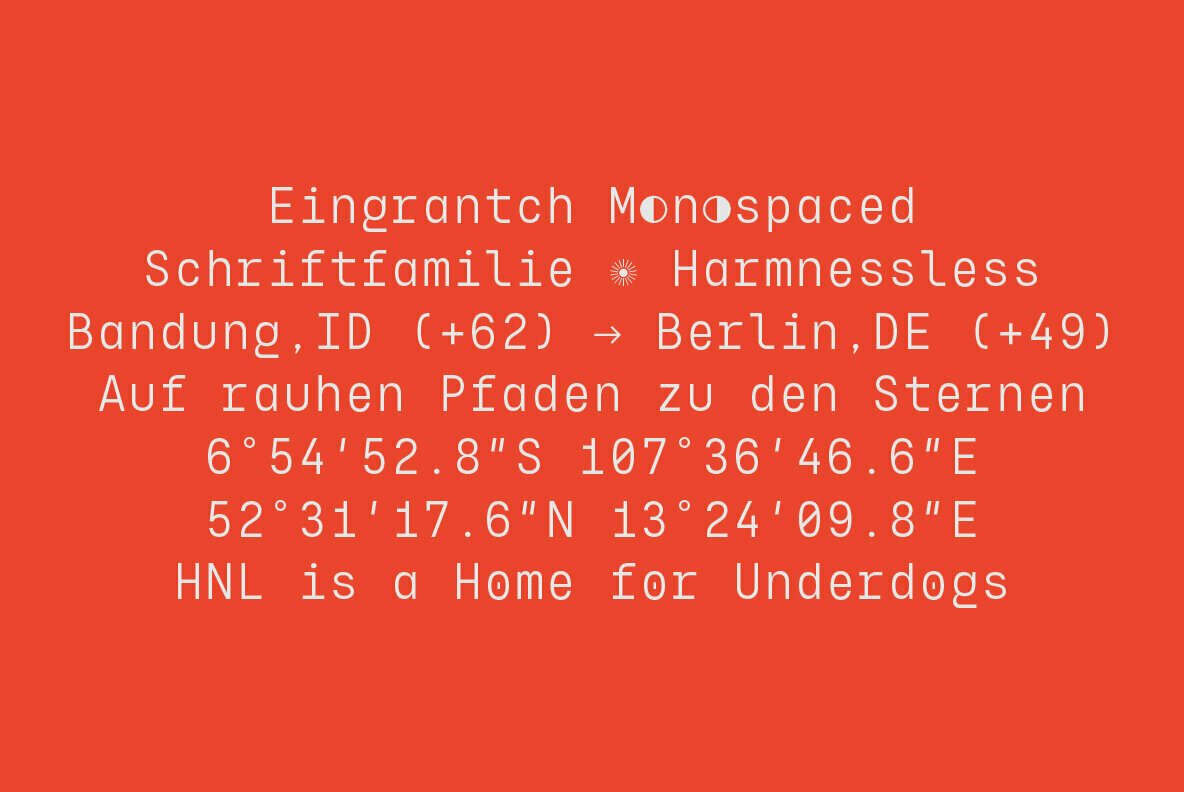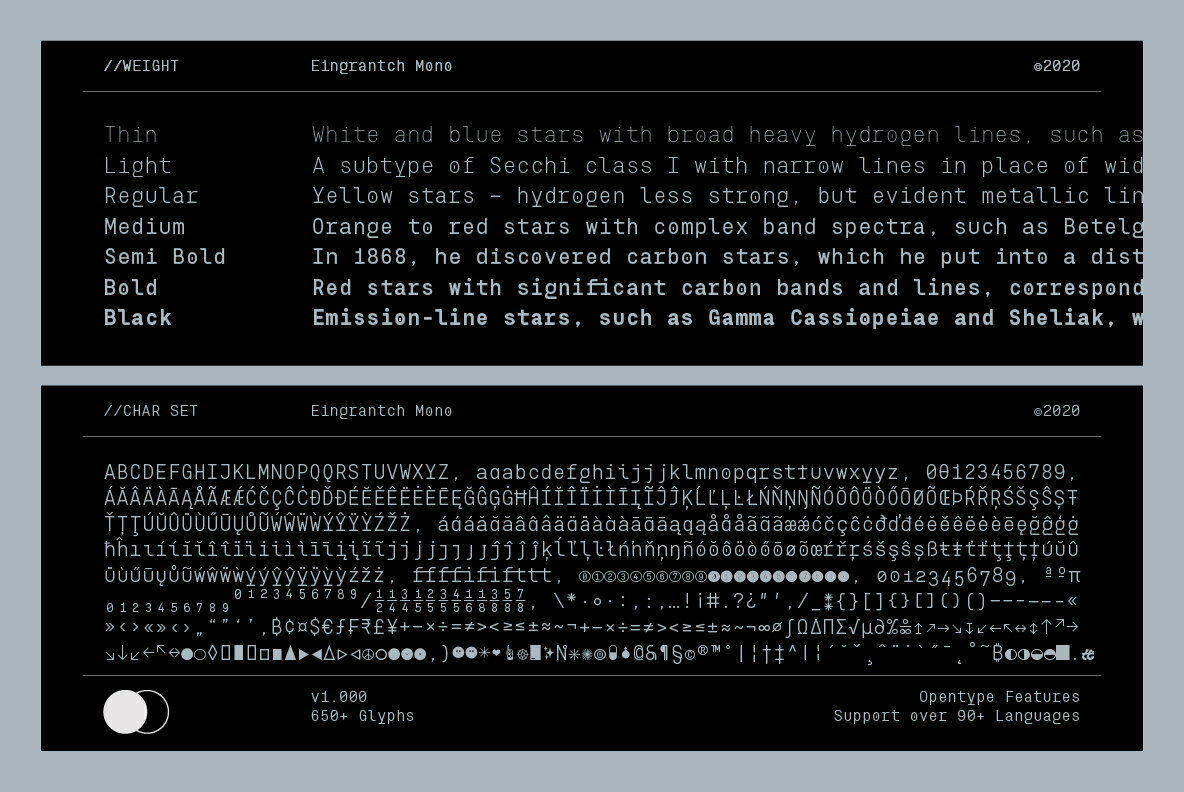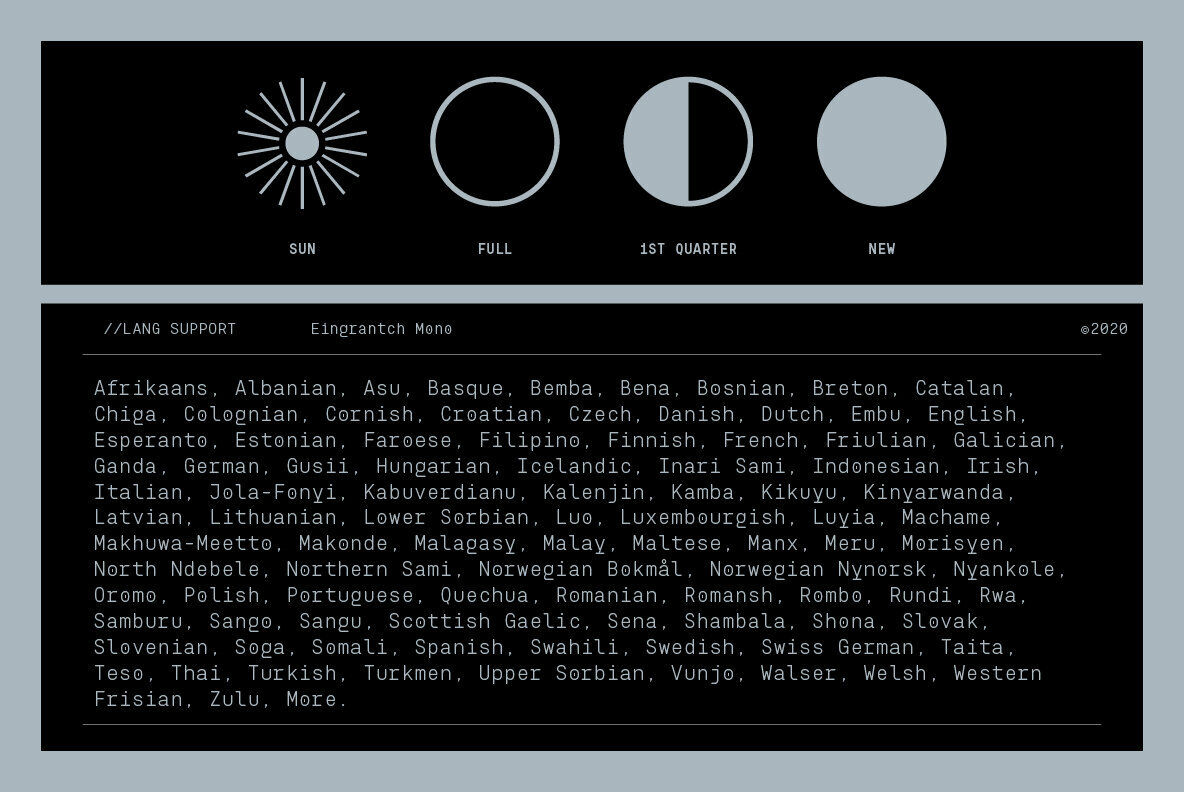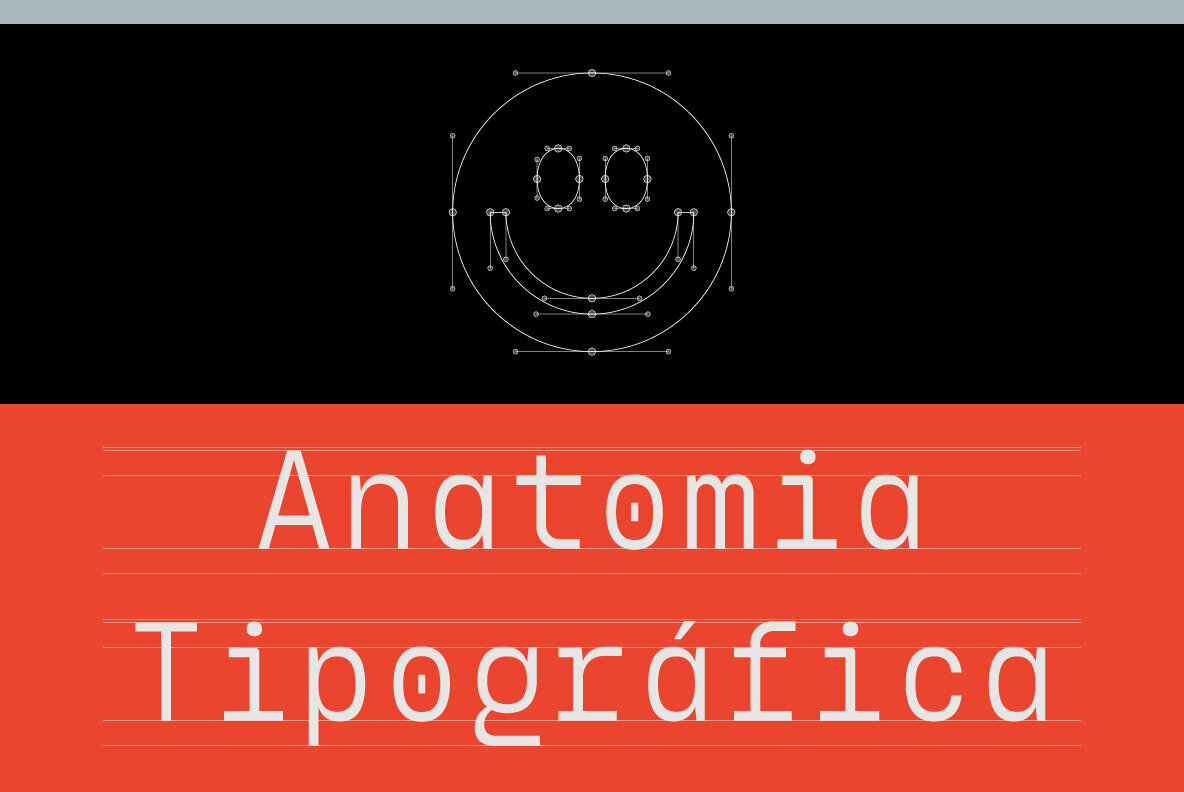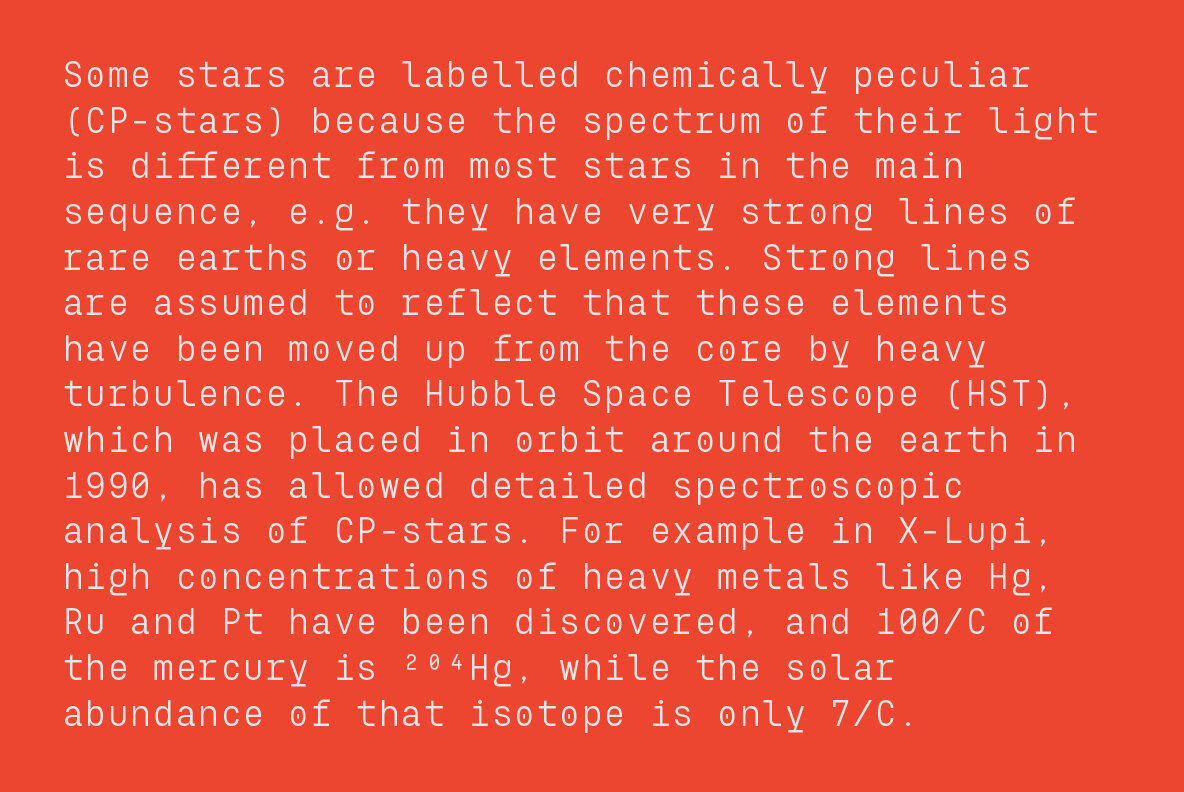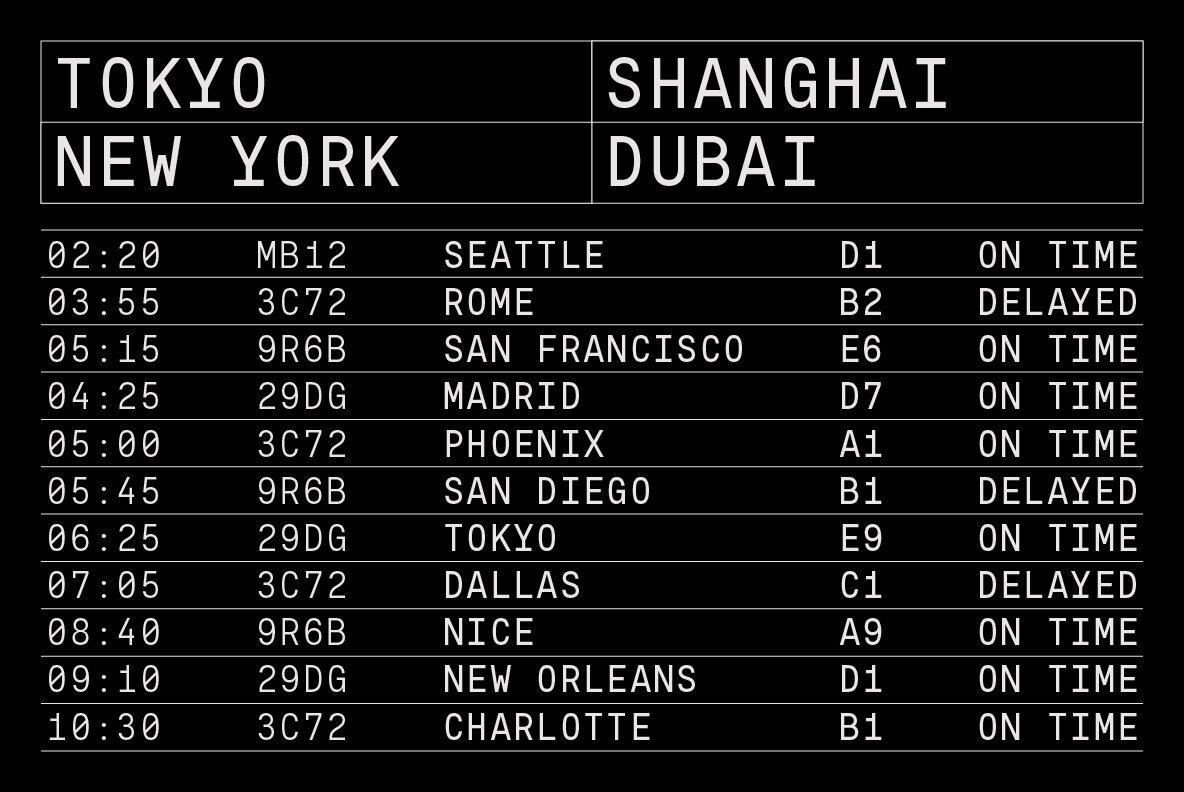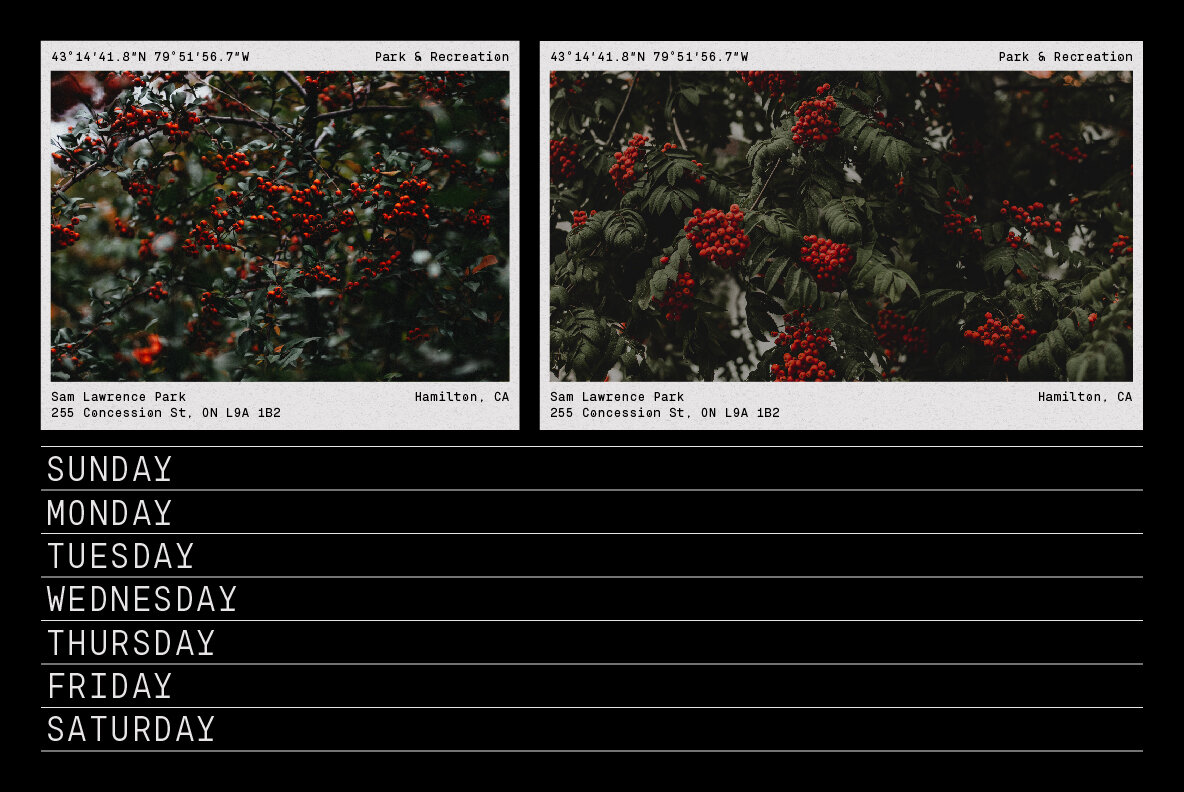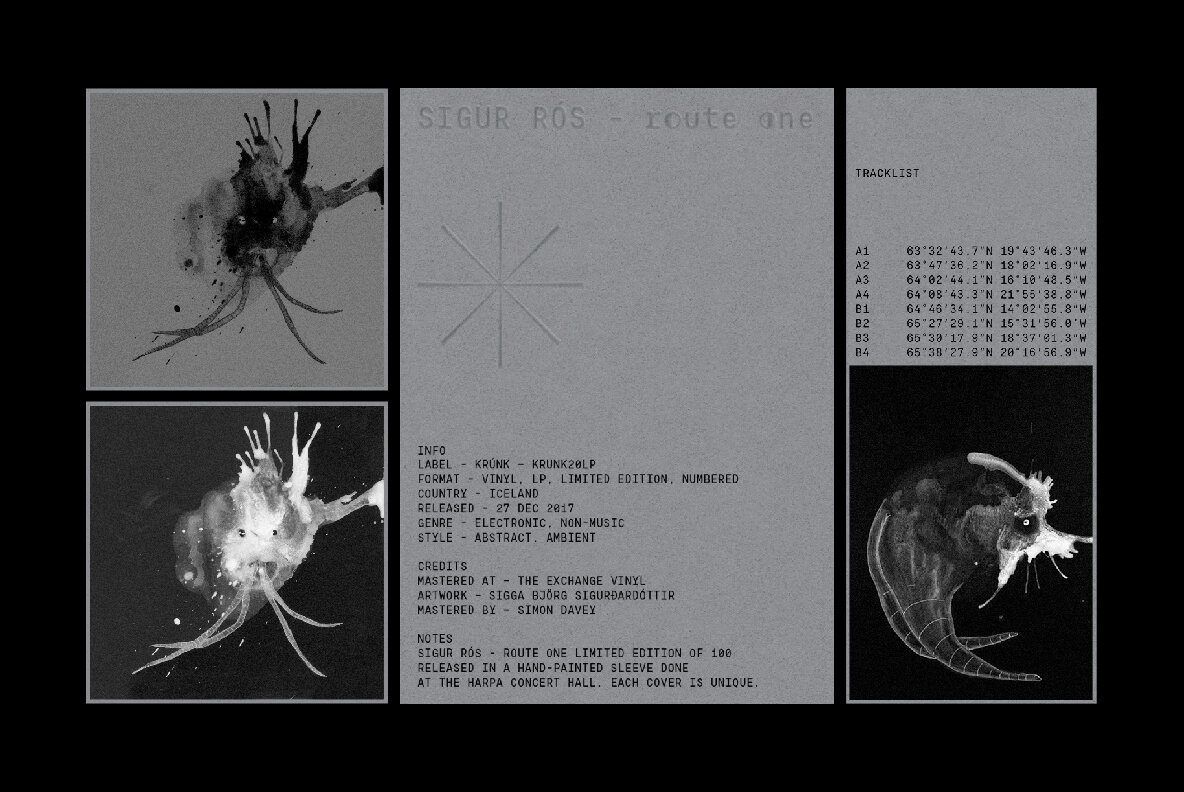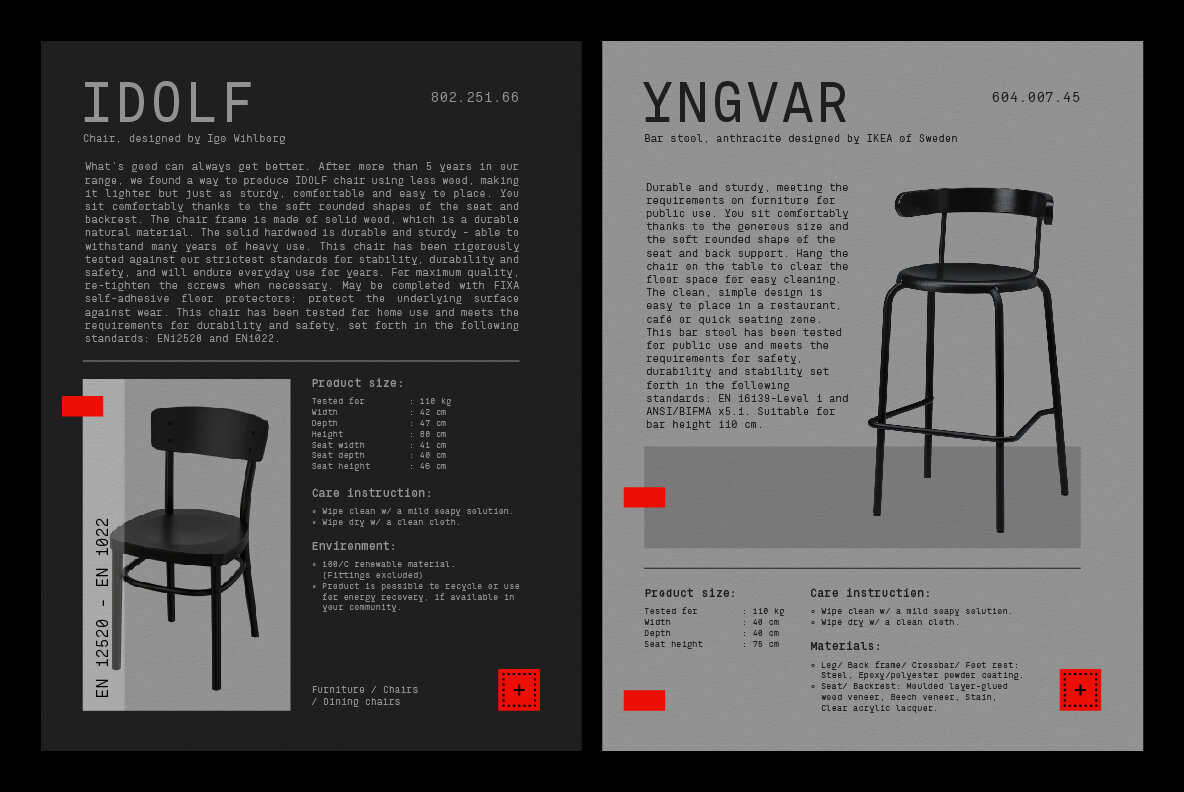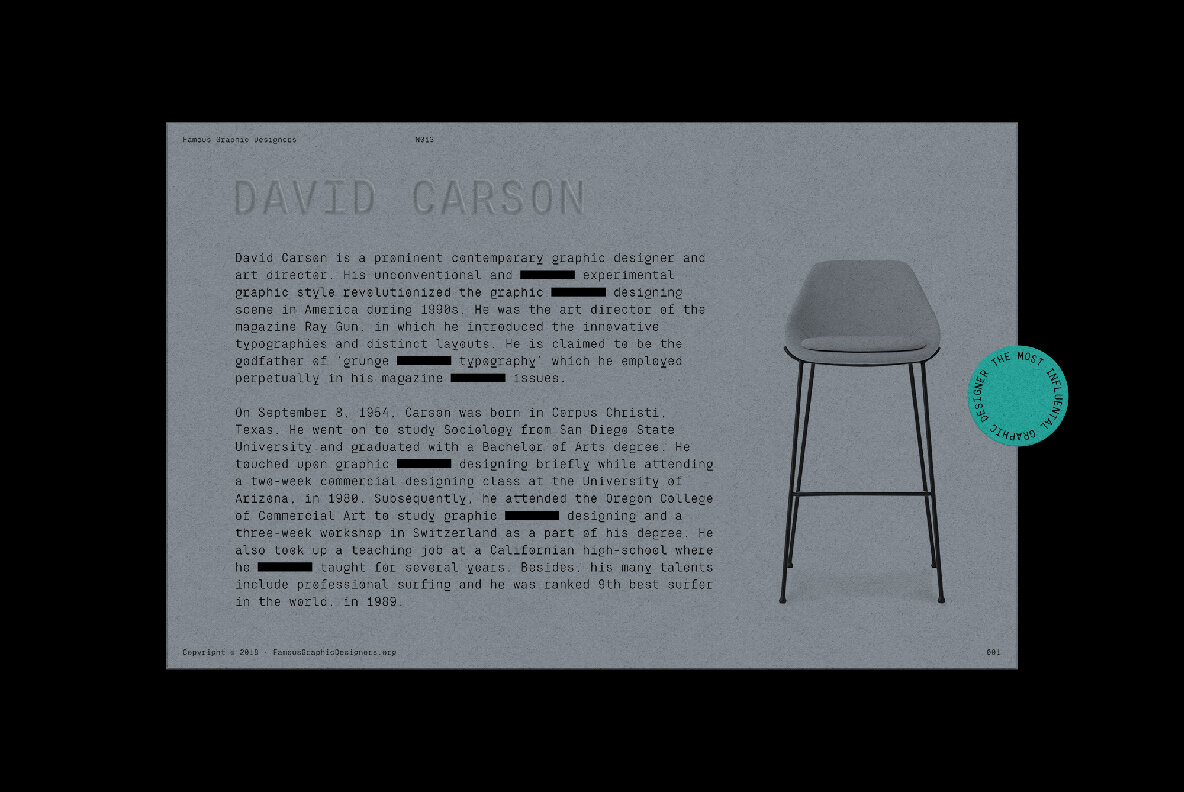
Eingrantch Mono Font
Eingrantch Monospaced is a monospaced neo-grotesk based typeface, inspired by an old Continental typewriter in sans serif version. Available in 7 weights from thin to black. Well suited for modern logotypes, branding, editorial design as well as web and screen design.